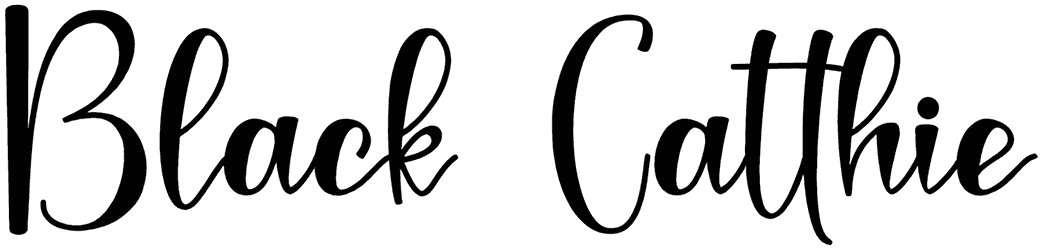
Black Catthie Font
At first glance, Black Catthie is an outstanding script font designed with irregular angles and a wavy finish. What makes this handwritten font attractive is its approach to character design.
The letters and numbers in this font look like someone drew them randomly, like when rushing to meet a deadline. This personal and natural feel in the design of this font has made it an excellent choice for designing book covers, music albums, and wedding cards.